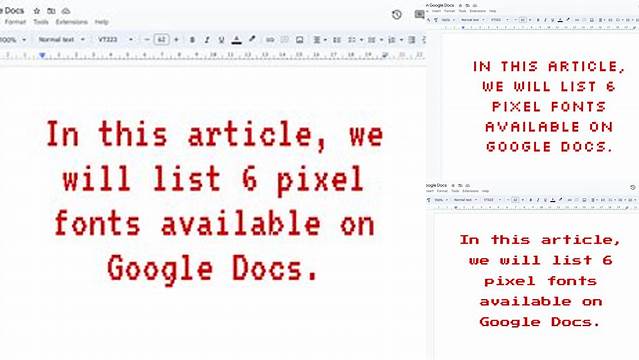
Find The Best Pixel Fonts On Google Fonts
Hey everyone! Are you looking for some awesome pixel fonts to give your designs that retro, 8-bit, or even just plain cool look? You're in the right place! We're diving deep into the world of best pixel fonts Google Fonts today. Finding the perfect font can be a real game-changer for your projects, whether you're building a website, designing a logo, or creating graphics for your next big thing. Let's explore some fantastic pixel fonts available on Google Fonts, discuss their unique features, and learn how to make them shine in your work. So, grab your favorite beverage, and let’s get started. This guide will cover everything from understanding the basics of pixel fonts to implementing them in your designs. You'll learn how to select the best fonts for your needs and optimize them for various applications. Let's explore the exciting world of pixel fonts and discover how they can add a unique touch to your creative endeavors. Let's get started and make your designs pop with some pixelated awesomeness!
1. What Exactly are Pixel Fonts?
Alright, let's start with the basics, shall we? What exactly are pixel fonts? Think of them as the digital ancestors of modern fonts, meticulously crafted to resemble the chunky, blocky characters seen in classic video games, early computer interfaces, and those iconic 8-bit graphics we all know and love. Best pixel fonts Google Fonts are characterized by their distinct pixelated appearance, where each character is built from a grid of individual pixels. This gives them a unique, retro aesthetic that can instantly transport your audience back to the golden age of gaming and computing. These fonts are designed to be easily readable even at small sizes, making them a great choice for user interfaces, game design, and any project where a nostalgic or tech-inspired look is desired. Pixel fonts are more than just a style; they're a statement. They're a nod to the past while also embracing the modern digital world. The charm of pixel fonts lies in their simplicity. Each letter, number, and symbol is carefully constructed with a limited number of pixels, creating a distinctive and visually appealing effect. The beauty of these fonts is in their inherent limitations, as they challenge designers to create legible and expressive characters within a constrained grid. Pixel fonts are about embracing a specific aesthetic and adding a bit of retro flair to any project, evoking a sense of nostalgia and playful creativity. It's like giving your designs a virtual high-five to the pixelated past! Understanding the core design principles of pixel fonts can help you make informed decisions about which fonts to use and how to effectively incorporate them into your projects. They aren't just for gaming or tech. They have become a stylistic choice that is still relevant today.
2. The Advantages of Using Pixel Fonts
So, why should you consider using best pixel fonts Google Fonts in your projects? The advantages are numerous, my friends! First off, they evoke nostalgia. Pixel fonts instantly remind people of classic video games, old computers, and the early days of the internet. This can create an emotional connection with your audience, especially if they grew up with those technologies. Secondly, pixel fonts are incredibly legible, even at small sizes. The bold, blocky nature of the characters makes them easy to read on screens of all sizes, which is a huge advantage in web design and user interface design. They are great for situations where clarity is paramount. Moreover, pixel fonts can give your designs a unique and eye-catching look. In a world filled with sleek, modern fonts, pixel fonts stand out and grab attention. They add personality and a touch of playfulness that can make your brand or project memorable. Finally, pixel fonts are versatile. They work well in a variety of applications, from website headers and logos to game interfaces and print materials. Plus, most pixel fonts are available for free on Google Fonts, making them an accessible option for designers of all budgets. They can give a sense of retro charm, make your projects distinct, and provide excellent readability. This combination of benefits makes pixel fonts a valuable tool for designers looking to create a memorable and effective visual experience.
3. Top Pixel Fonts Available on Google Fonts
Now, let's dive into the good stuff: the fonts themselves! Google Fonts is a treasure trove of best pixel fonts Google Fonts. Some of the most popular and highly regarded pixel fonts include Press Start 2P, a classic that perfectly captures the feel of old-school arcade games. Its bold, blocky design is instantly recognizable and perfect for headers, titles, and game interfaces. Another great option is VT323, a monospace font inspired by the appearance of the VT320 computer terminal. It's got a distinct retro feel while remaining highly readable. Then there's Silkscreen, which is inspired by the lettering found on vintage electronics. For those who want something a little more unique, consider Pixelify Sans, which offers a cleaner, more modern take on the pixelated aesthetic. All these fonts offer different vibes, from retro gaming to tech-inspired looks. When you are picking out your font, think about your project and which one has the look you are going for. This is where you get to show off your creativity! Google Fonts provides a great selection of pixel fonts that are free and easy to use, and with the right choice, your designs can achieve a distinctive aesthetic.
4. How to Choose the Right Pixel Font for Your Project
Choosing the right pixel font can make or break your design. Firstly, consider the purpose of your project. Are you designing a game interface, a website header, or a logo? The context determines your font choice. For instance, Press Start 2P is great for gaming, while VT323 works well in a tech-related context. Secondly, focus on readability. Ensure the font is easy to read at the intended size. Test it out by placing your text in the context of your design. Third, think about the aesthetic you're going for. Do you want a retro, futuristic, or modern look? Different pixel fonts evoke different moods. Silkscreen lends a retro vibe, while Pixelify Sans offers a modern take on the pixelated aesthetic. Fourth, consider the weight and style of the font. Bold fonts grab attention and are great for headings, while regular fonts can be used for body text. Lastly, don't be afraid to experiment! Try out different fonts and see how they look in your project. Google Fonts makes it easy to test fonts before implementing them. When choosing best pixel fonts Google Fonts, consider how it fits your brand. Does it align with the tone, style, and messaging? Always experiment and have fun. Your design choices should reflect what you want to communicate. Careful selection ensures that your font choices enhance the overall look and feel of your project, creating an effective and memorable user experience.
5. Tips for Using Pixel Fonts Effectively
Alright, let's talk about using pixel fonts effectively. First, size matters! Pixel fonts are most effective at certain sizes. Too small, and they become hard to read; too large, and they lose their charm. Play around with different sizes to find the sweet spot for your project. Second, consider the color palette. Pixel fonts work best with clear, contrasting colors. Avoid using too many colors or complex gradients, as this can detract from the pixelated look. Third, pay attention to spacing. Pixel fonts often benefit from a little extra letter spacing. This can improve readability, especially at smaller sizes. Fourth, use pixel fonts sparingly. While they're eye-catching, using them for everything can overwhelm the viewer. Use them strategically for headings, titles, and key design elements to make them stand out. Remember the goal of these fonts is to create something unique, and that requires careful thought on how to use them. Fifth, test your fonts on different devices and screen sizes. What looks good on your desktop may not look as good on a mobile device. Sixth, always keep the retro aesthetic in mind. Do not forget about the core values of pixel fonts. Experiment with bold colors to create a sense of personality. The proper implementation of these fonts can help make your design both memorable and engaging. By following these tips, you can ensure that your chosen best pixel fonts Google Fonts create a positive visual impact and effectively convey your message.
6. Pixel Fonts in Web Design: Best Practices
Want to use pixel fonts on your website? Here’s how to do it right! First off, consider your target audience. Are they likely to appreciate the retro aesthetic? Pixel fonts can create a fun, engaging experience, especially for younger audiences. Second, make sure your website is responsive. Pixel fonts need to look good on all devices, so test your site on different screen sizes. Third, optimize your font loading. Use Google Fonts’ built-in features to ensure that your pixel fonts load quickly and don't slow down your website. Fourth, use pixel fonts for headings, titles, and short pieces of text. Body text can become tiresome to read with pixel fonts. Fifth, pair your pixel font with a more readable font for body text. This creates a good balance. Sixth, pay attention to contrast. Make sure your font colors contrast with your background, ensuring readability. Seventh, use pixel fonts sparingly. Too much can be overwhelming. Eighth, consider accessibility. Ensure that your pixel fonts are accessible to all users, including those with visual impairments. Ninth, focus on user experience. Use the fonts to enhance the overall design. Tenth, keep the design simple and clean. The best pixel fonts Google Fonts work best in uncluttered designs. Make sure your website is easy to navigate and that the design choices amplify the message. By following these best practices, you can use pixel fonts to add a unique and engaging touch to your website while maintaining a high-quality user experience.
7. Pixel Fonts for Logos and Branding
Pixel fonts are fantastic for logos and branding! They can give your brand a distinctive, memorable look. Start by considering your brand's personality. Do you want to come across as fun, tech-savvy, or retro? Your logo should reflect this. Then, choose a pixel font that aligns with your brand's values. Does it feel unique to your company? For example, Press Start 2P works well for gaming brands. After that, make sure your logo is easy to read at various sizes. Logos need to be clear whether they're on business cards, websites, or billboards. Next, keep it simple! Don't overcomplicate your logo with too many elements or colors. Consider the color palette. Pixel fonts can be very effective with a vibrant or simple color scheme. Think about how the pixel font looks on different backgrounds. Then, test your logo on various mockups and in different contexts to see how it performs. Make sure it’s versatile and can be used across different platforms. Ensure it creates a positive impact. Consider the font weight, as a bold font will draw attention. Remember, logos are the face of a brand. The best pixel fonts Google Fonts can make your brand stand out. You want your logo to be memorable, eye-catching, and reflect your brand’s values, creating a strong brand identity.
8. Pairing Pixel Fonts with Other Fonts
Pairing pixel fonts with other fonts is an art! To create effective combinations, consider what each font brings to the table. A pixel font is great for headings, but can be tiring for body text. Start by choosing a complementary font for body text. Use a clean, readable sans-serif font like Open Sans or Lato. Then, create contrast! Pair a bold pixel font with a lighter, more streamlined font for balance. Consider the mood. Match the style. Use fonts that share similar traits to create a cohesive look. Contrast is crucial. Don't use two pixel fonts together unless they are very different. Always check readability. Your design should be easy to read and easy on the eyes. Pair fonts that work harmoniously. For websites, consider a serif font for headings. The combination will make for great aesthetics. Experiment and explore various combinations. Use your creativity! When pairing best pixel fonts Google Fonts with other fonts, the goal is to create a visually appealing and functional design. Ensure the fonts complement each other, enhancing readability and making the design memorable.
9. Accessibility Considerations for Pixel Fonts
Making your designs accessible is crucial. When using best pixel fonts Google Fonts, make sure your design is accessible to everyone. First, consider the contrast. Ensure sufficient contrast between the font color and the background. High contrast increases readability for those with visual impairments. Second, prioritize readability. Choose pixel fonts that are easy to read, even at smaller sizes. Third, provide alternative text for images of text. This helps screen readers. Fourth, test your design with a screen reader to make sure the content is understandable. Fifth, provide clear labels and instructions. Make sure that your user interfaces are easy to navigate. Sixth, allow users to customize font sizes. This can greatly improve the user experience. Seventh, avoid using pixel fonts for large blocks of text. Their readability can be an issue. Eighth, ensure that all interactive elements have sufficient contrast and are clearly identifiable. Ninth, use a consistent and logical layout. This makes it easy for users to understand and navigate your content. Tenth, conduct usability testing with users of different abilities to ensure that your design works well for everyone. By keeping these accessibility considerations in mind, you can create a design that's inclusive and usable by everyone. The main goal is to make sure your message reaches everyone. These considerations help you create an inclusive and user-friendly experience.
10. Customizing and Modifying Pixel Fonts
Customizing and modifying pixel fonts can give your designs a unique edge! You can change colors, sizes, and spacing. This is how you can make the font feel more personal to you. First, consider the software you're using. Programs like Photoshop, Illustrator, and even some online tools allow you to modify fonts. After that, adjust the color! Change the color of the pixels to match your project’s color scheme. Experiment with gradients and patterns. Change the size! Make sure the font is scaled to fit your needs. Alter the spacing between letters! This can greatly impact readability. Modify the font weight. You can make the font bold or thin. Create custom characters. You can add, change, or remove pixels. Experiment with different effects. This may change the look of the font. Modify kerning and tracking. This will allow you to adjust the space. Test out different iterations. Make sure your custom fonts look right. When you customize best pixel fonts Google Fonts, you have the potential to create a design that is unique. Your designs can stand out and have more personality. Modifying pixel fonts allows you to create a unique and personalized design that perfectly suits your project. Embrace your creativity.
11. Resources for Finding and Downloading Pixel Fonts
Finding and downloading best pixel fonts Google Fonts is easier than ever. Google Fonts is your best starting point, of course! It offers a vast selection of free pixel fonts. Check out websites like DaFont and Font Squirrel, which also provide a wide range of free fonts. When downloading, make sure you check the license of the font. Most fonts are free for personal use, but some may require a license for commercial projects. Always download fonts from reputable sources to avoid malware. Consider these websites when finding pixel fonts. When you have made a selection, download the font files. Many websites offer fonts in formats like .ttf (TrueType) and .otf (OpenType), which are compatible with most design software. After downloading, install the font on your computer. Installation instructions vary depending on your operating system, but typically involve double-clicking the font file and clicking the